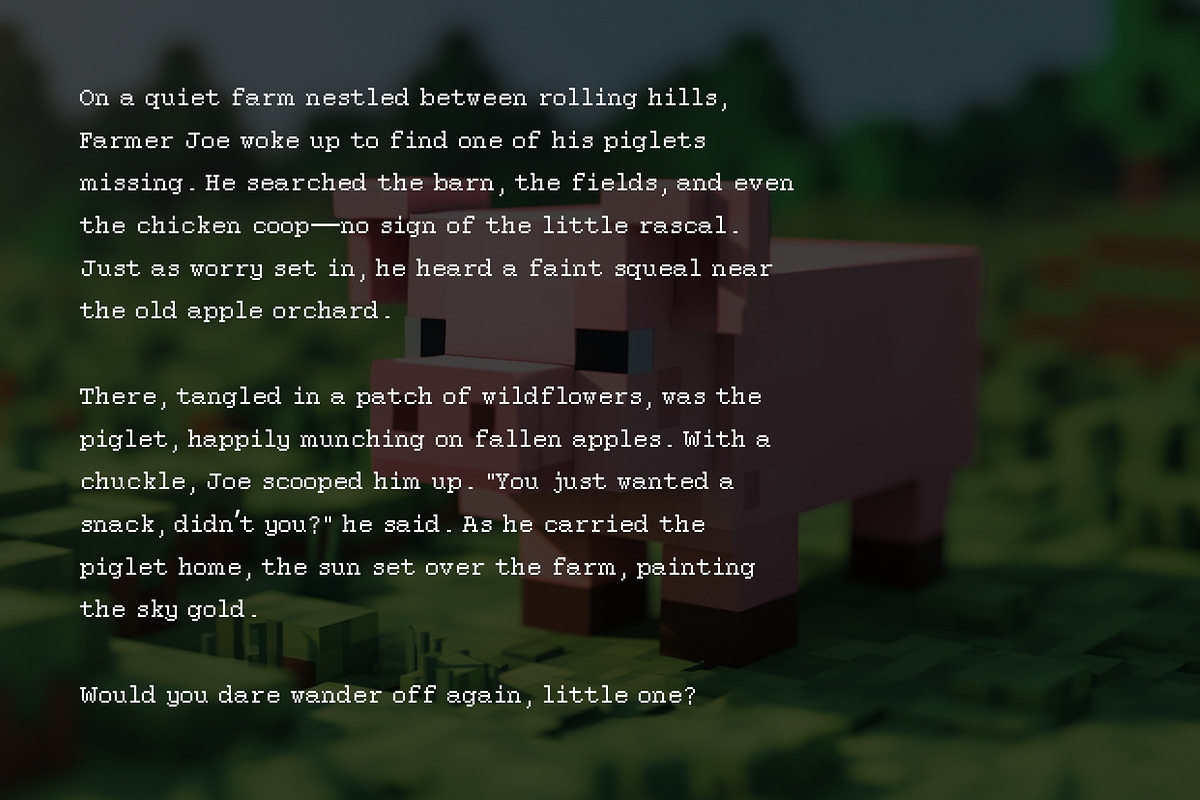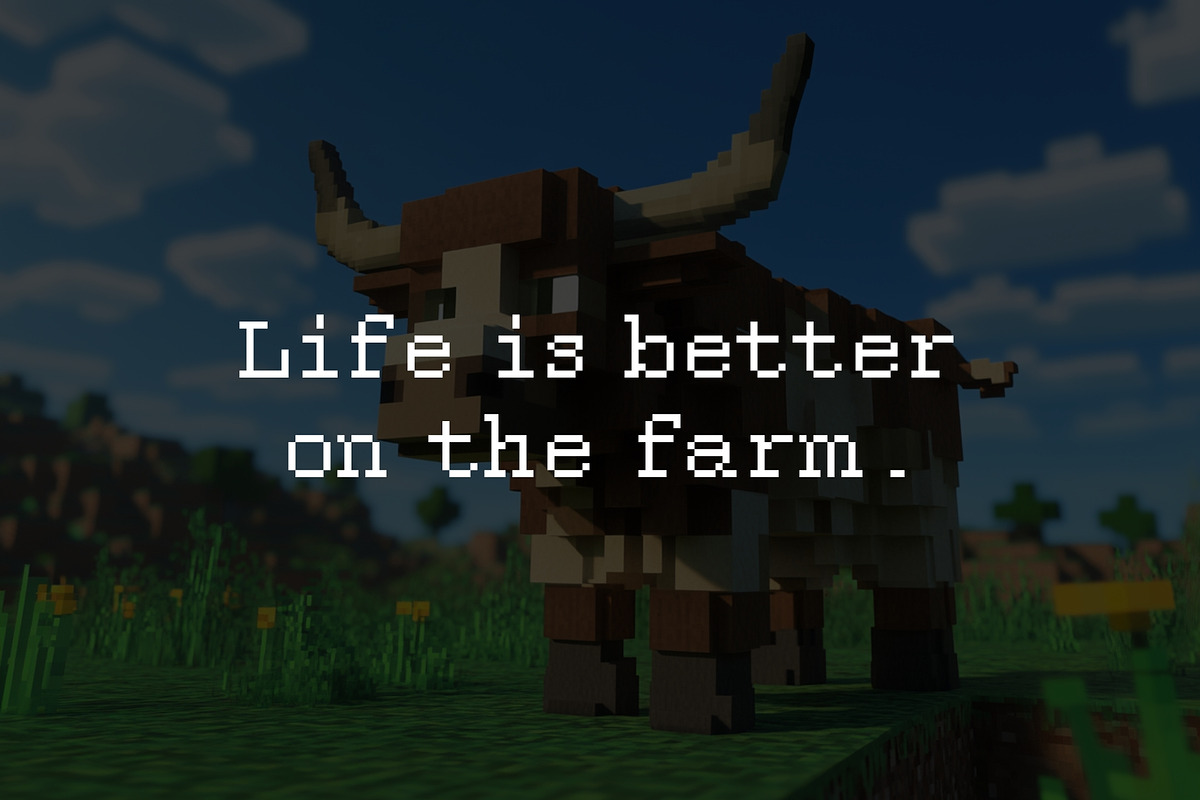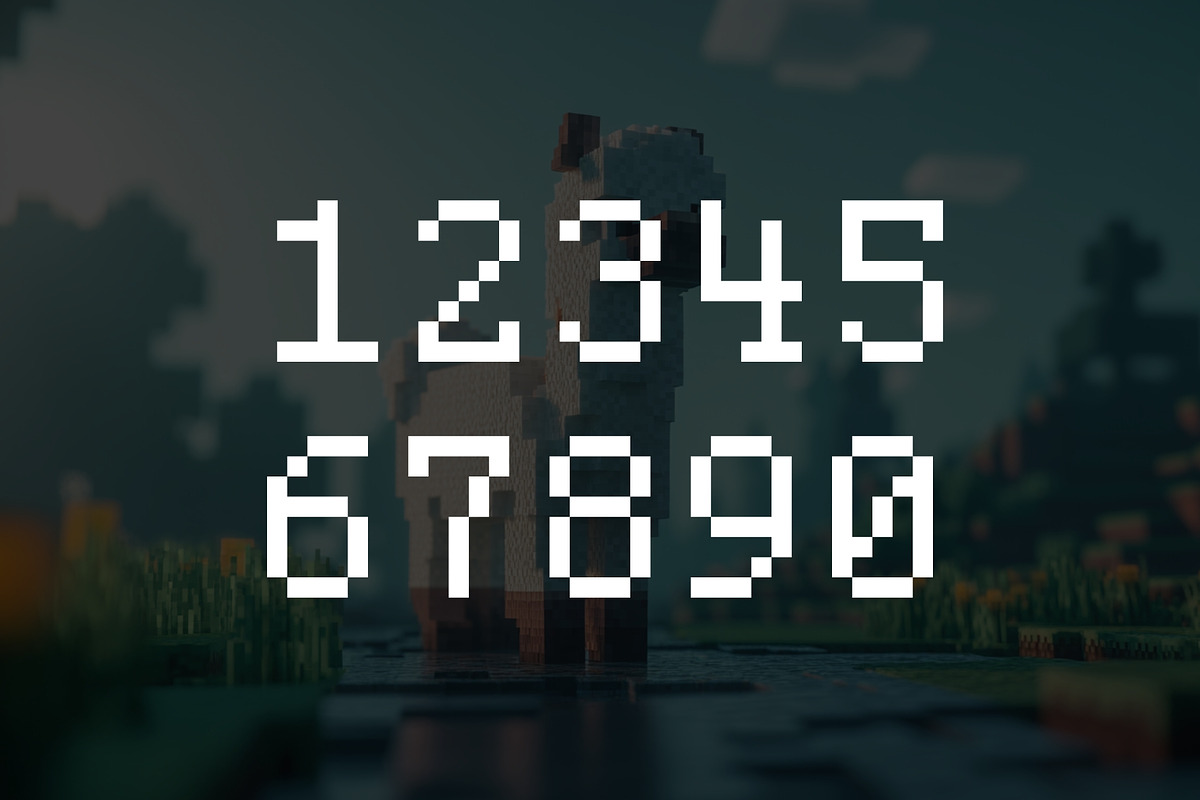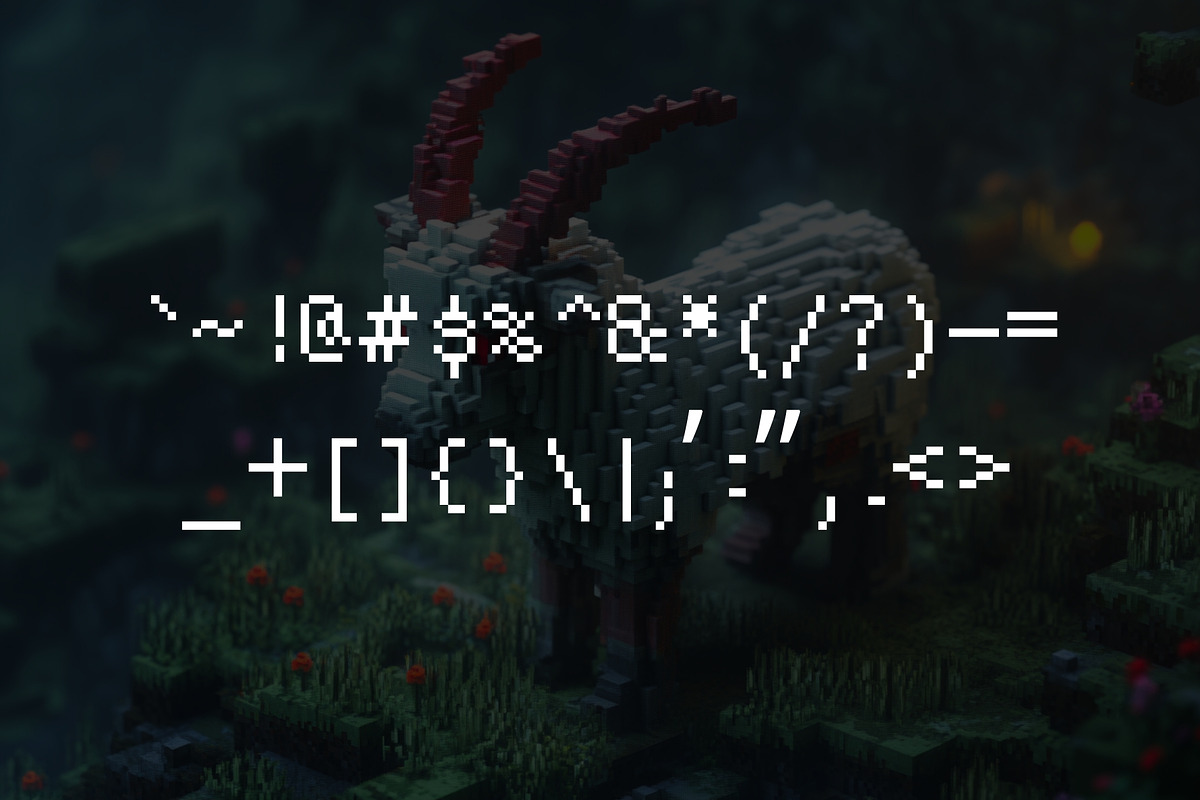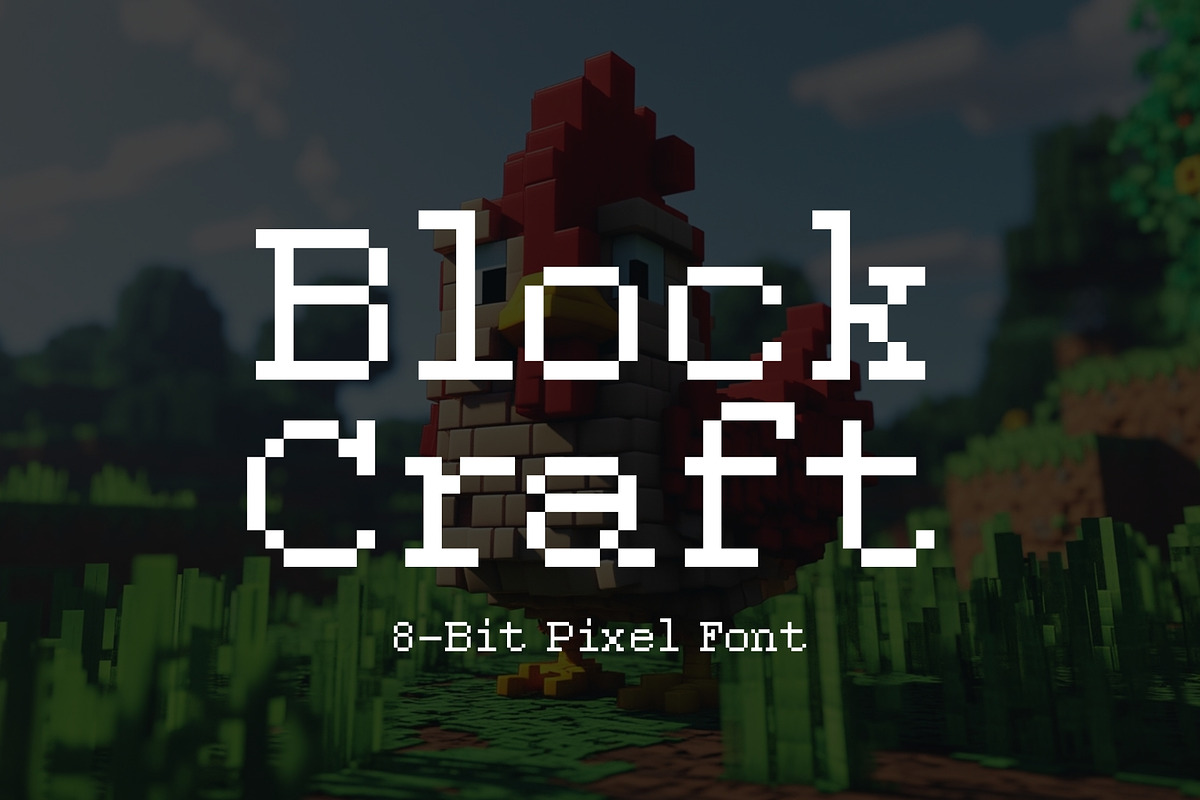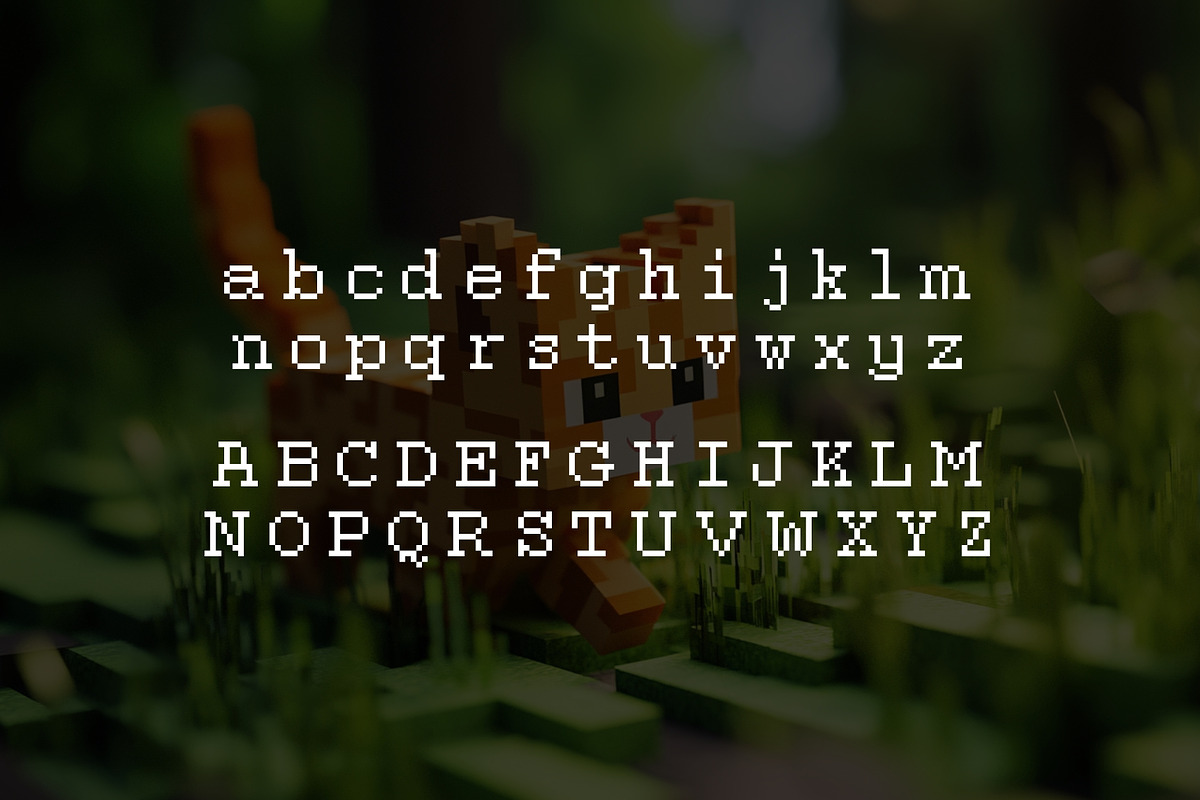
Block Craft - 8-Bit Pixel Font
Step into the pixelated world of Block Craft, a clean, beautiful, and highly legible 8-bit font designed for retro and modern projects alike. Whether you're creating a game interface, YouTube thumbnails, branding, or digital art, Block Craft delivers crisp, blocky perfection with every letter.
Inspired by classic arcade aesthetics and voxel-style graphics, this font brings a nostalgic yet polished feel to your designs. Its bold structure and pixel-perfect clarity ensure readability across screens big and small. Elevate your retro-inspired projects with Block Craft—where simplicity meets pixel magic!